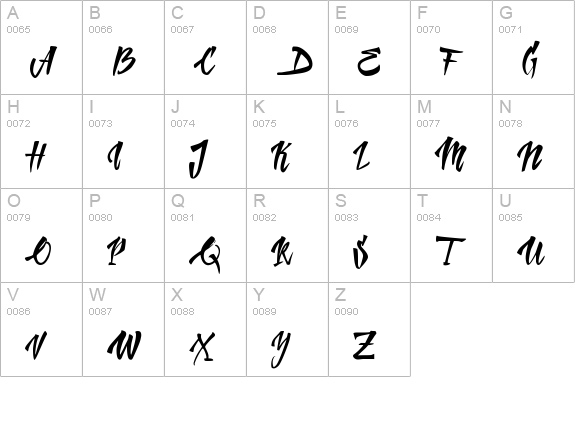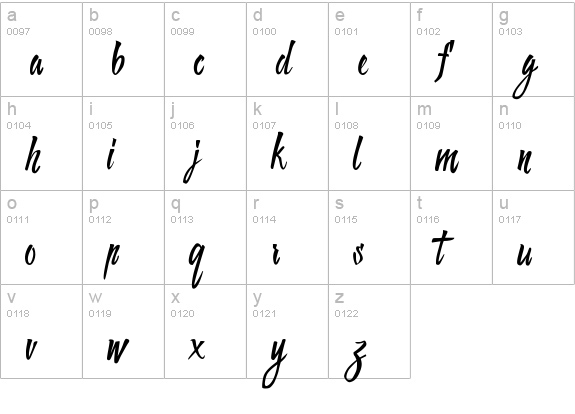
Handletter Font Details
Introducing the exquisite Handletter font, a beautifully crafted typeface that exudes elegance and charm. Each character is intricately designed with a handwritten feel, adding a personal touch to your projects. The flowing lines and delicate curves of this font make it perfect for a wide range of creative applications, from branding to invitations to social media graphics. What's even better is that Handletter is available for free download at FontsMarket.com! This means you can easily access this stunning font to elevate your designs without any cost. Don't miss out on adding this versatile and stylish typeface to your collection today. Handletter font is sure to make a lasting impression and bring a touch of sophistication to your projects.